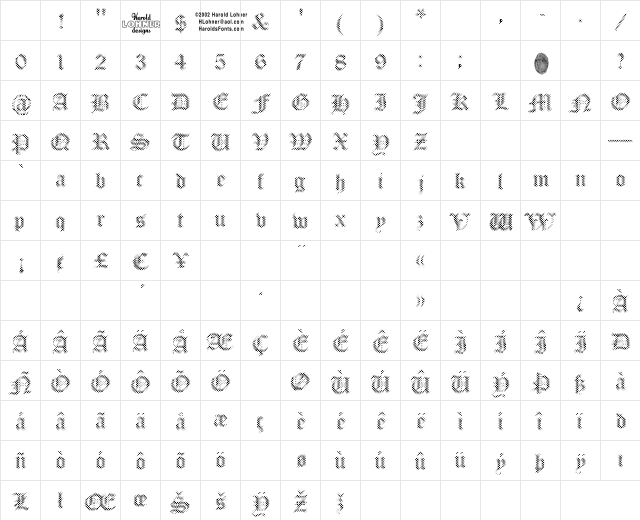
PalimpsestLight is a composed and adaptable typeface that performs quietly and consistently across a wide range of design contexts. Its slender proportions lend an understated elegance to any composition.